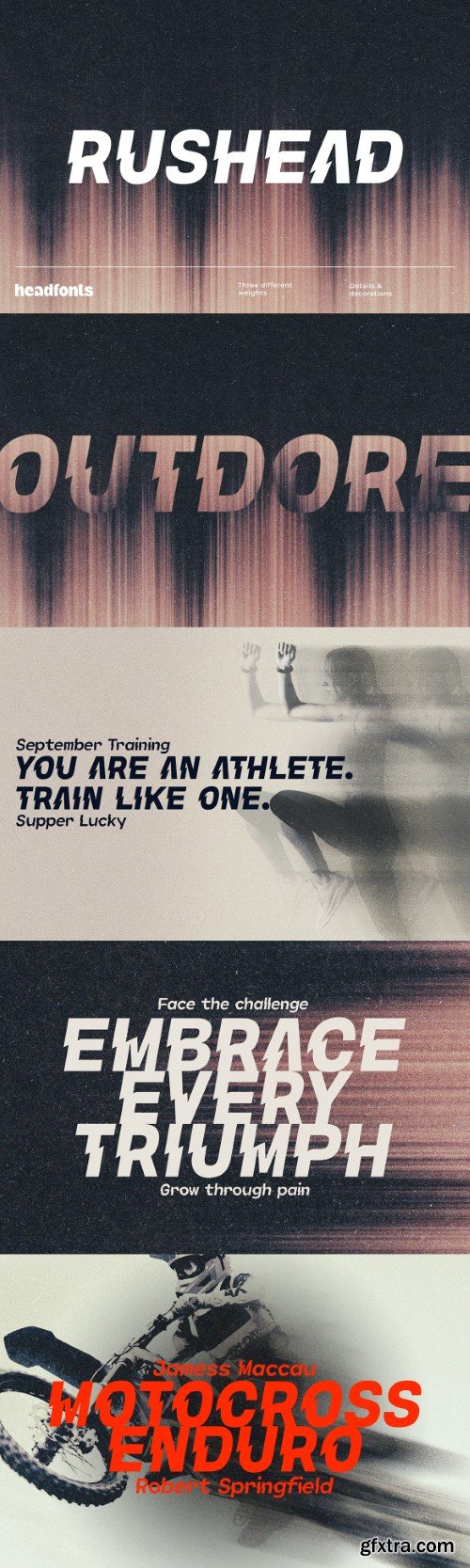
Rushead A Modern Sport Font Built for Speed
- Rushead is a premium, geometric display font designed for maximum visual impact. Its forward-leaning stance and rising diagonal cut through each character convey motion, energy, and precision, making it ideal for racing visuals, futuristic branding, and high-performance design. Available in three weights (Light, Regular, Bold), Rushead blends minimalism with bold character. The dynamic slash cutting through every letterform creates rhythm and movement while maintaining sharp clarity. Perfect for sports branding, logos, esports graphics, and fast-paced headlines, Rushead delivers a sleek, modern aesthetic with a fast-forward feel, built for brands that want to move. Rushead Light, Regular, Bold OTF file format Long-term support Free features for the next updates